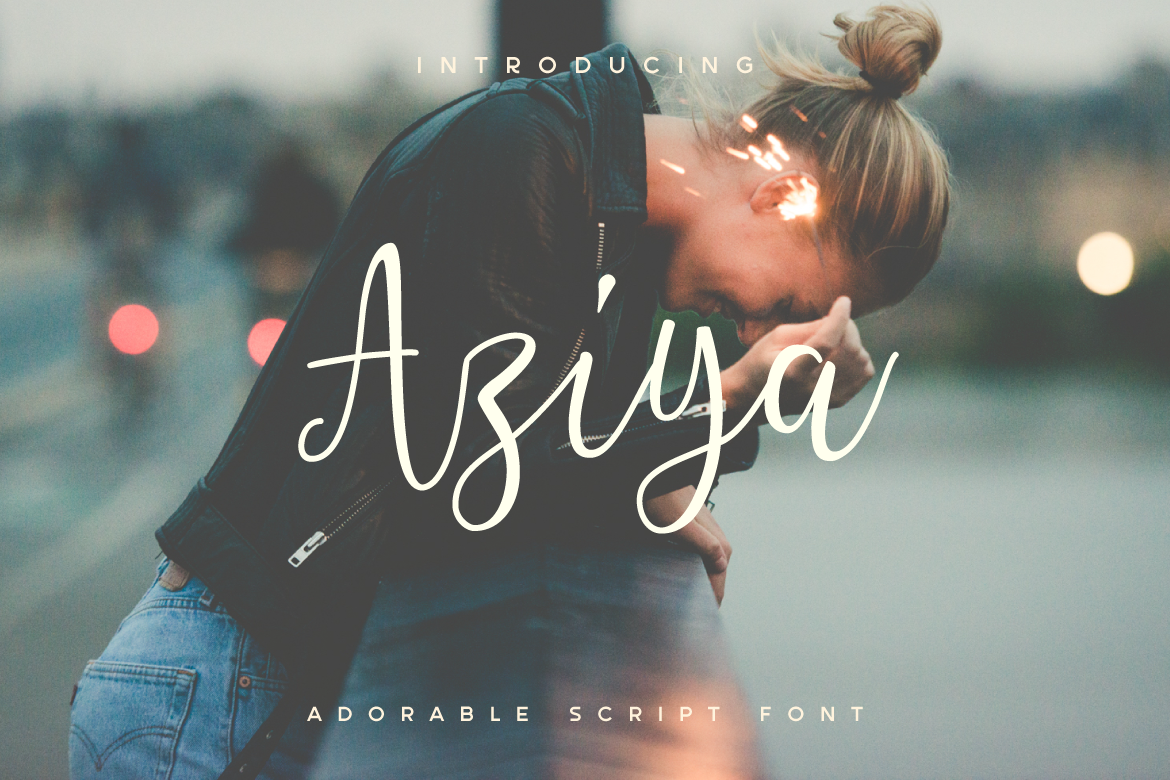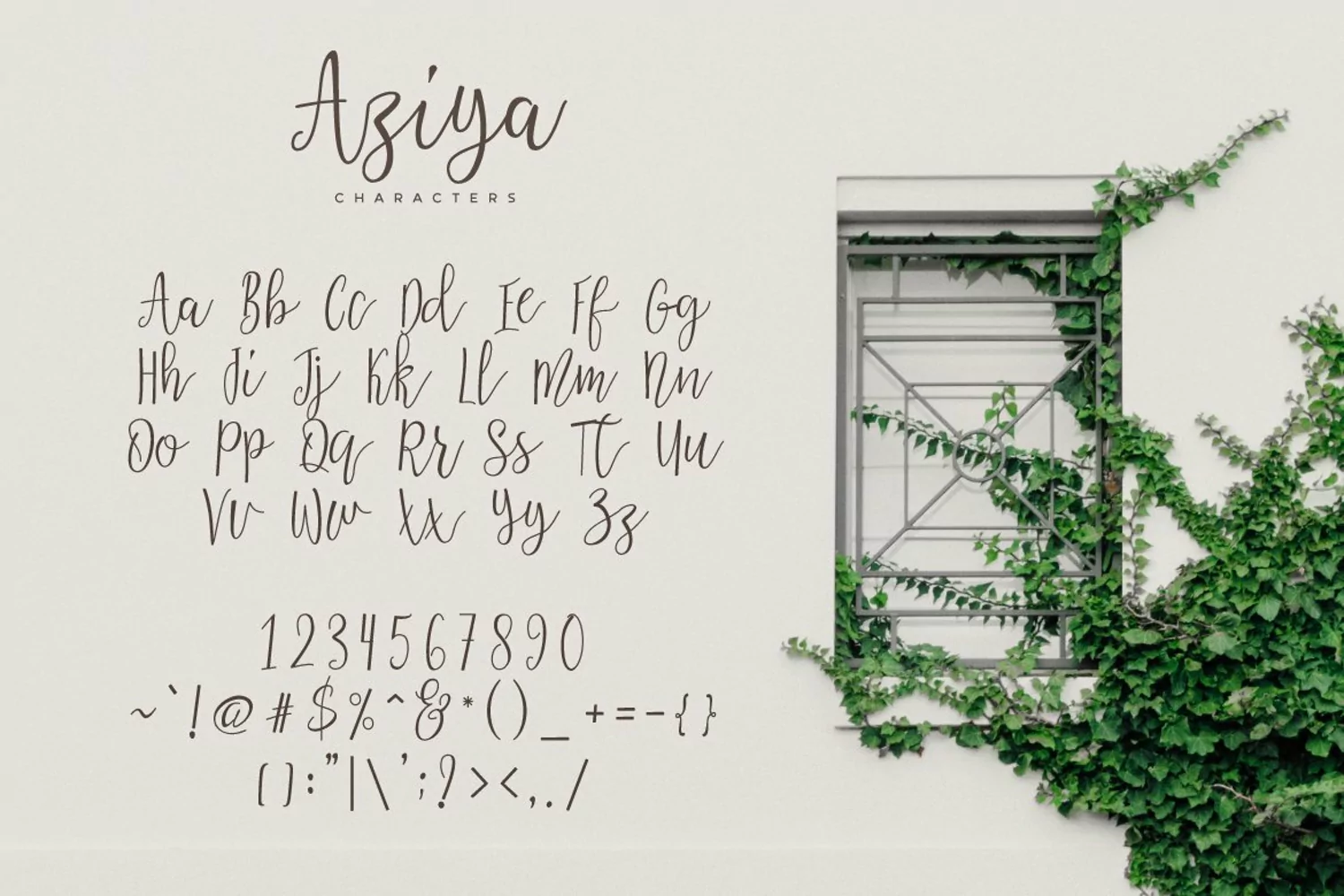
Aziya is a beautiful calligraphy font. Aziya font is suitable for any design needs, modern invitation design, branding, blog design, modern advertising design, invitation, Art Quote, Home decor, Book/Cover Title, Invitation, special events, birthday, custom mug, pillow, t-shirts, any calligraphy style needs and more.Thank you for your purchase! and hope you're having fun with Aziya ! Happy creating! Typia Nesia Studio